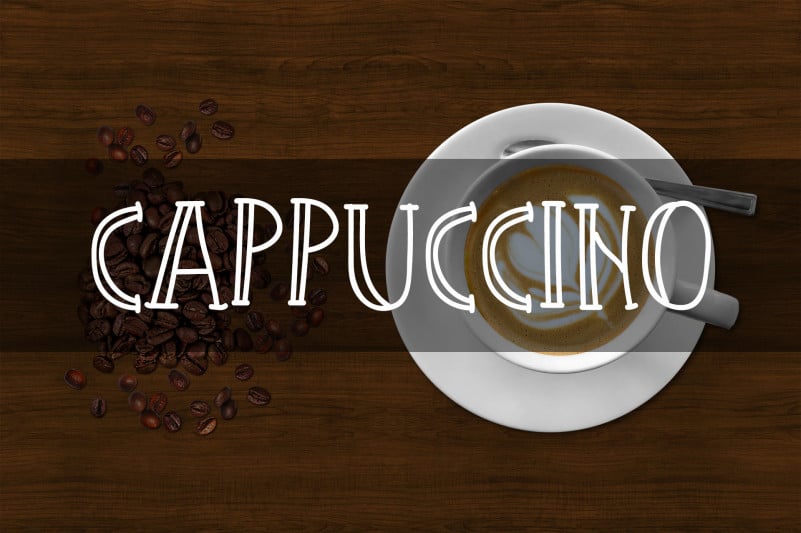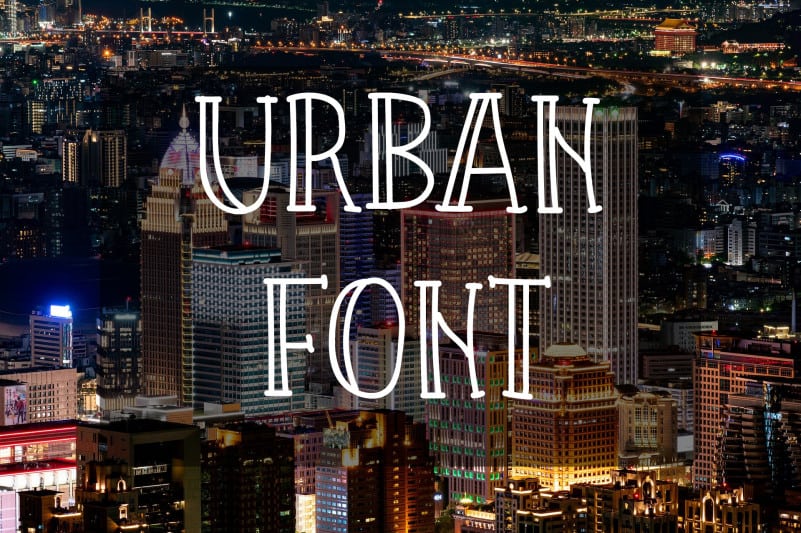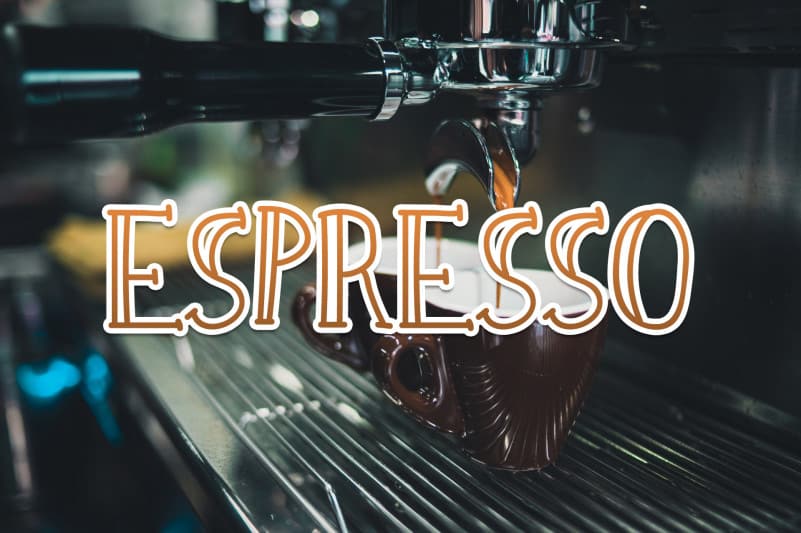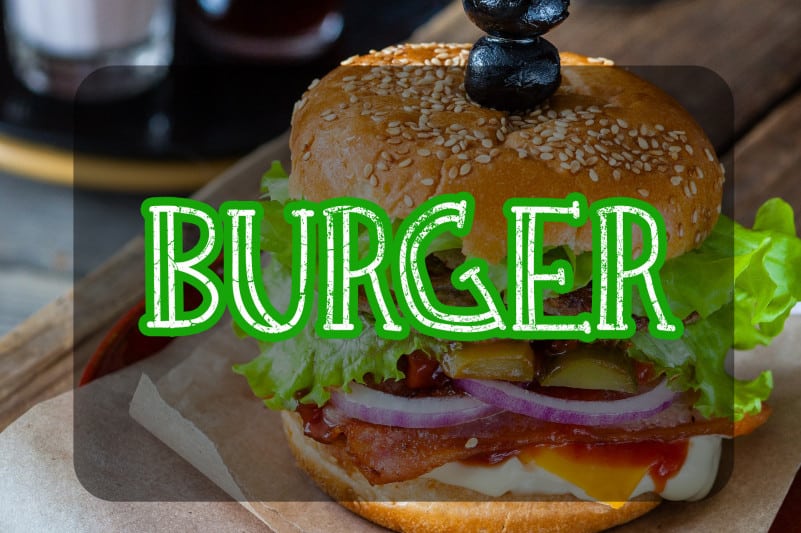
Barista Urban Coffee Display Font
Barista Urban Coffee Display Font is an urban styled display font. It is ideal for magazine covers, logos, quotes, menus and so much more. Let your imagination run wild.